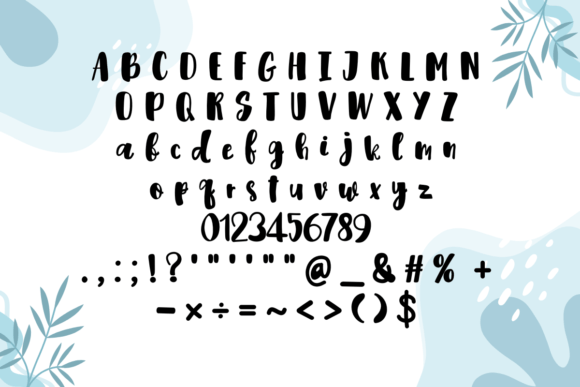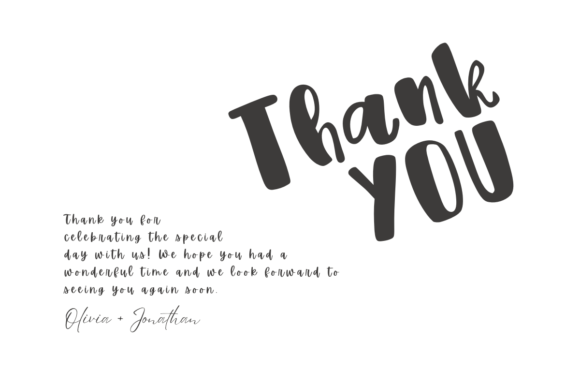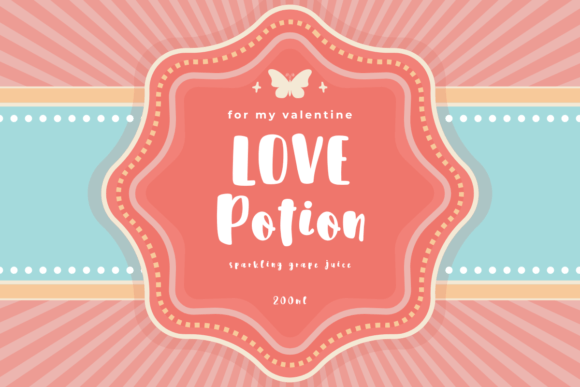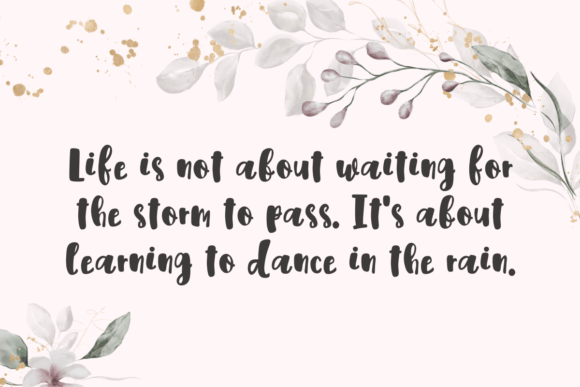
The Aesthetic Touch: Elevating Your Designs with a Handwritten Font
Do you ever find yourself sitting at your desk, surrounded by scattered papers, sticky notes, and half-finished ideas, yet feeling a sudden urge to create something beautiful? That’s exactly what happened to me last week, and it sparked the idea for this article. As I flipped through my journal, I stumbled upon a handwritten note that I had scribbled months ago, and it made me realize the power of a well-designed font in capturing emotions and conveying messages.
Aesthetic Font is a handwritten font that’s perfect for adding a personal touch to your designs. Whether you’re taking notes, writing a diary, or creating greeting cards, this font is sure to bring a smile to your face. But its uses don’t stop there – Aesthetic Font can also be used for banners, social media posts, and even merchandise like mugs and shirts. For designers, this font is a valuable addition to their toolkit, offering a unique and creative way to express themselves and connect with their audience.
Aesthetic Font Key Features
- Font Family: Aesthetic Font is a sans-serif font family that includes multiple weights and styles, offering a wide range of design possibilities.
- Font Size: The font is designed to be highly legible at various font sizes, with optimal readability at sizes ranging from 10 to 24 points.
- Resolution: Optimized for high-resolution displays, Aesthetic Font is suitable for use on screens with resolutions up to 300 DPI (dots per inch).
- Unique Characteristics: The font features a unique blend of modern and elegant design elements, including subtle rounded edges and a balanced x-height, making it perfect for use in branding, advertising, and editorial design.
- Language Support: The font family supports a wide range of languages, including Latin, Cyrillic, and Greek scripts, making it a versatile choice for global design projects.
Aesthetic Font Review
I recently had the chance to work with the Aesthetic Font, and I must say it’s a unique addition to any design project. ✨ One of its strongest features is its versatility – it’s suitable for a wide range of applications, from digital displays to printed materials. The font’s elegant lines and subtle curves make it an excellent choice for luxury brands or high-end products.
Another standout aspect of Aesthetic Font is its seamless pairing with various colors. ✨ It can add a touch of sophistication to even the most minimalist designs, and its ability to blend in with modern color schemes is impressive. Whether you’re going for a bold, eye-catching look or a more subdued, elegant feel, Aesthetic Font is sure to deliver.
- ⚠️ Limited support for some non-Latin languages, which may be a concern for international projects
- ⚠️ Can appear too ornate for some designs, potentially overwhelming the overall aesthetic
- ⚠️ May not be suitable for projects requiring a more casual, informal tone
Overall, I’m impressed with the Aesthetic Font’s capabilities and its potential to elevate design projects. However, it’s essential to consider its limitations and choose it wisely, depending on your specific project requirements. With some thoughtful application, Aesthetic Font can be a valuable addition to your design toolkit.
Getting the Most Out of Aesthetic Font
To get the most out of aesthetic font, use it sparingly and in creative ways, such as:
- Using it as a title font
- Applying it to quotes or inspirational text
- Using it in social media graphics
Aesthetic font is commonly used in:
- Instagram posts and stories
- Facebook and Twitter graphics
- Blog posts and articles
Alternatives to Aesthetic Font
Great Vibes is a modern script font that is ideal for creating a relaxed and casual atmosphere. It features a flowing and elegant design that is perfect for use in titles, headings, and quotes. Compared to Aesthetic Font, Great Vibes has a more laid-back and carefree feel, making it suitable for designs that require a touch of whimsy and personality.